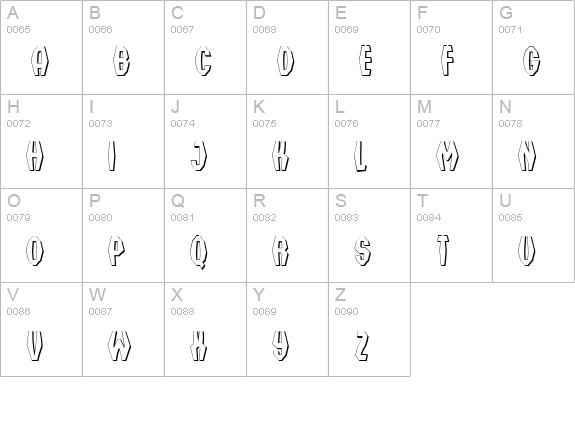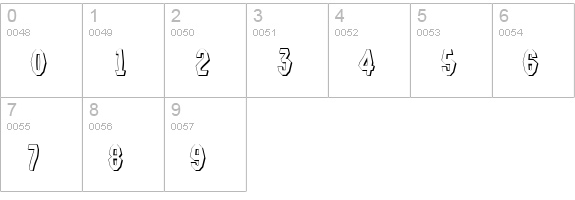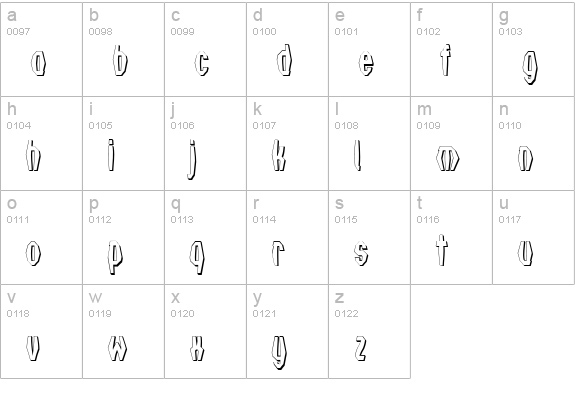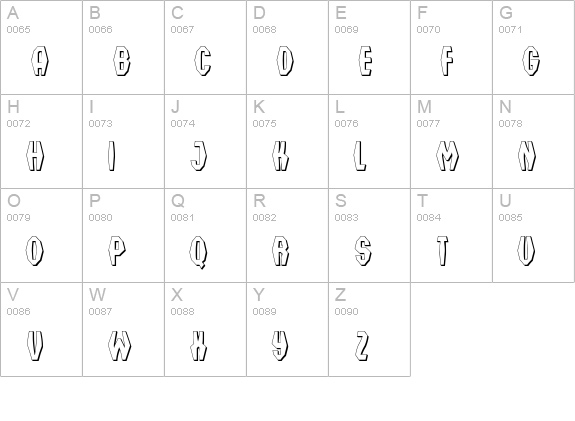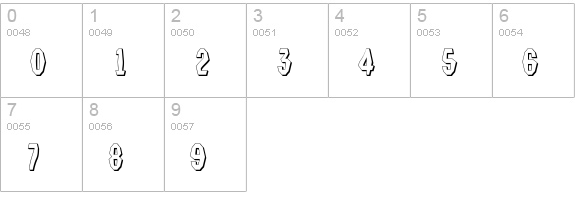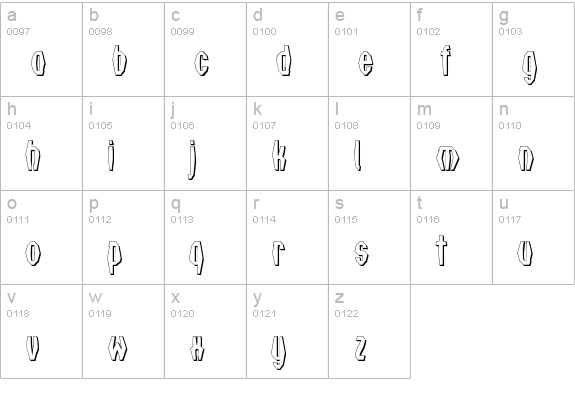
a_Technics3DFsy DemiBold Font Details
a_Technics3DFsy DemiBold is a sub-bold, structured variant in the a_Technics3DFsy typeface family \xE2\x80\x94 well suited to sub-headlines and emphasised passages.
The Technics3DFsy DemiBold font is a striking and modern typeface that adds a touch of sophistication to any design project. With its three-dimensional effect and bold weight, this font commands attention and makes a statement. Perfect for headlines, logos, and branding materials, Technics3DFsy DemiBold will elevate your designs to the next level. What sets this font apart is that it is available for free download at FontsMarket.com. Yes, you read that right - you can freely access and use this high-quality font to enhance your creative projects. Don't miss out on the opportunity to add Technics3DFsy DemiBold to your font collection today!